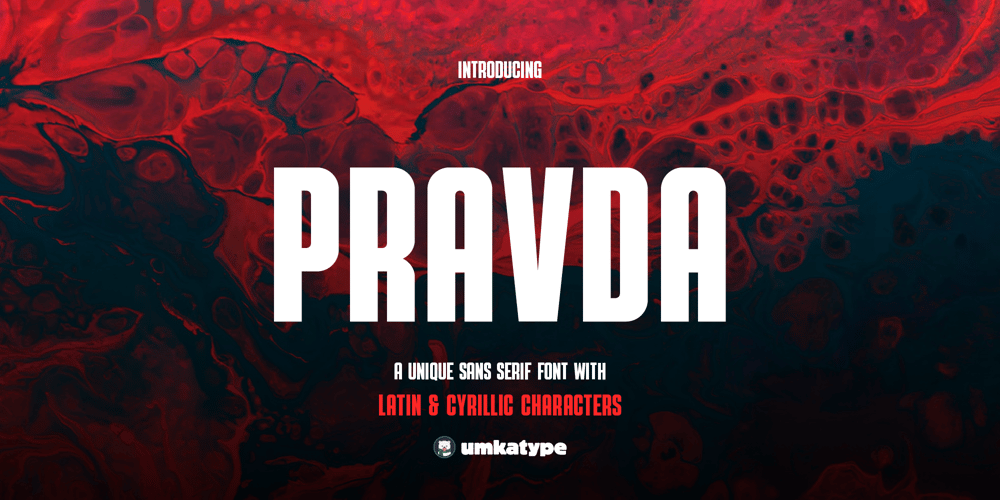
Pravda Font Family was designed by Alper Çakıcı and published by Umka Type. Pravda contains 1 styles and family package options. Pravda is a robust and distinctive sans serif font boasting full Cyrillic language support. Its modern and versatile design, combined with meticulous kerning, makes it an excellent choice for digital and print projects alike. With a unique blend of classic proportions and contemporary flair, Pravda stands out as a standout option in its category, ensuring seamless multilingual communication across 68 languages.”Languages: Afrikaans, Albanian, Asu, Basque, Bemba, Bena, Breton, Catalan, Chiga, Cornish, Danish, Dutch, English, Faroese, Filipino, French, Friulian, Galician, German, Gusii, Icelandic, Indonesian, Irish, Italian, Kabuverdianu, Kalenjin, Kinyarwanda, Luo, Luxembourgish, Luyia, Machame, Makhuwa-Meetto, Makonde, Malagasy, Manx, Morisyen, North Ndebele, Norwegian Bokmål, Norwegian Nynorsk, Nyankole, Oromo, Portuguese, Quechua, Romansh, Rombo, Rundi, Russian, Rwa, Samburu, Sango, Sangu, Scottish Gaelic, Sena, Shambala, Shona, Soga, Somali, Spanish, Swahili, Swedish, Swiss German, Taita, Teso, Turkish, Uzbek (Latin), Volapük, Vunjo, Zulu